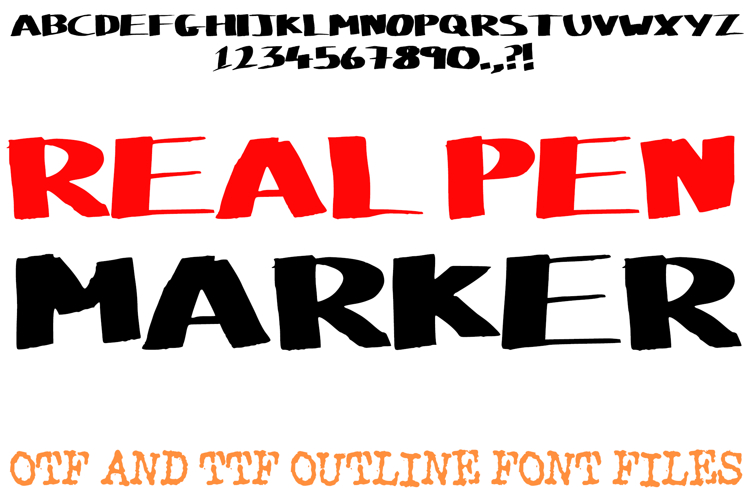
Real Pen Marker Font Chunky Ink Hand Written Type Lettering
Get that authentic, hand-drawn look with the Real Pen Marker Font! This energetic display alphabet perfectly captures the raw, textured aesthetic of a broad-tip marker pen, complete with visible strokes and imperfect edges. It is the ultimate choice for urban branding, edgy streetwear designs, gritty posters, and high-impact social media graphics that need a rebellious, artisan vibe.
The bold, high-contrast letterforms ensure your text remains the focal point of any design, giving your words a sense of urgency and creative flair. Whether you are creating a "grungy" YouTube thumbnail or designing customized stickers for a lifestyle brand, the Real Pen Marker Font provides a professional yet raw look that stands out instantly.
Authentic Broad Tip Texture: Every character features the distinct texture and imperfections of a real marker pen.
High-Impact Boldness: The thick, heavy silhouette ensures your text remains readable and impactful, even from a distance.